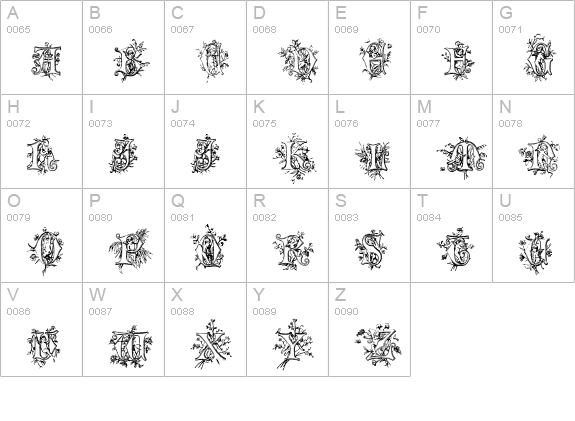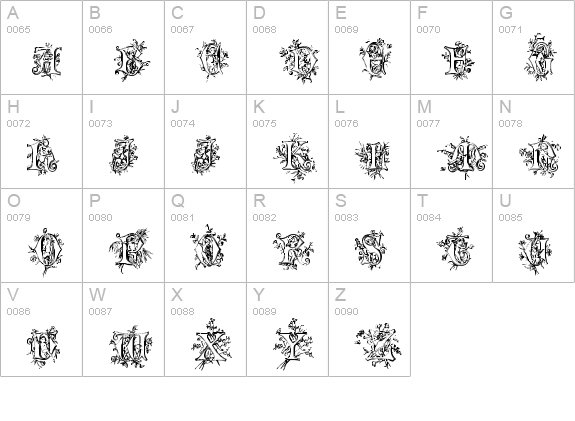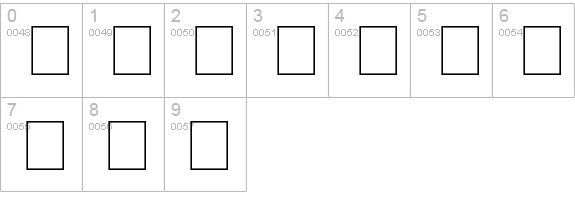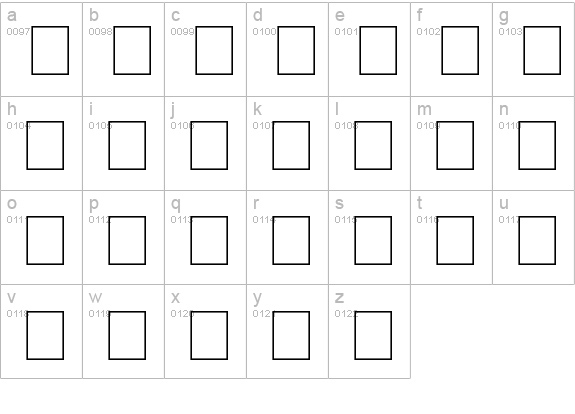
Cherubim Initials Font Details
Cherubim Initials font is a stunning and elegant typeface that exudes sophistication and charm. With its intricate detailing and classic design, this font is perfect for adding a touch of luxury to any project. The elaborate flourishes and ornate motifs of Cherubim Initials font make it a standout choice for invitations, branding, and decorative elements. Best of all, Cherubim Initials font is available for free download at FontsMarket.com. This means you can easily access this exquisite font and elevate your designs without any cost. Whether you're a designer looking to add a touch of elegance to your work or someone in need of a stylish font for a special project, Cherubim Initials font is the perfect choice. Download it now and let your creativity soar with this beautiful and sophisticated typeface.